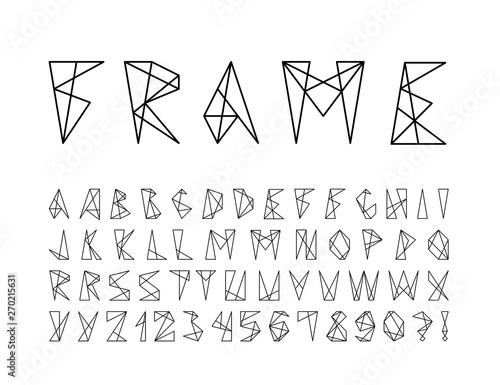
Abstract frame logo font. Minimalist frame alphabet. Abc design. Geometric abstract technology font. Futuristic alphabet for logotype. Design letters and numbers logo. Vector